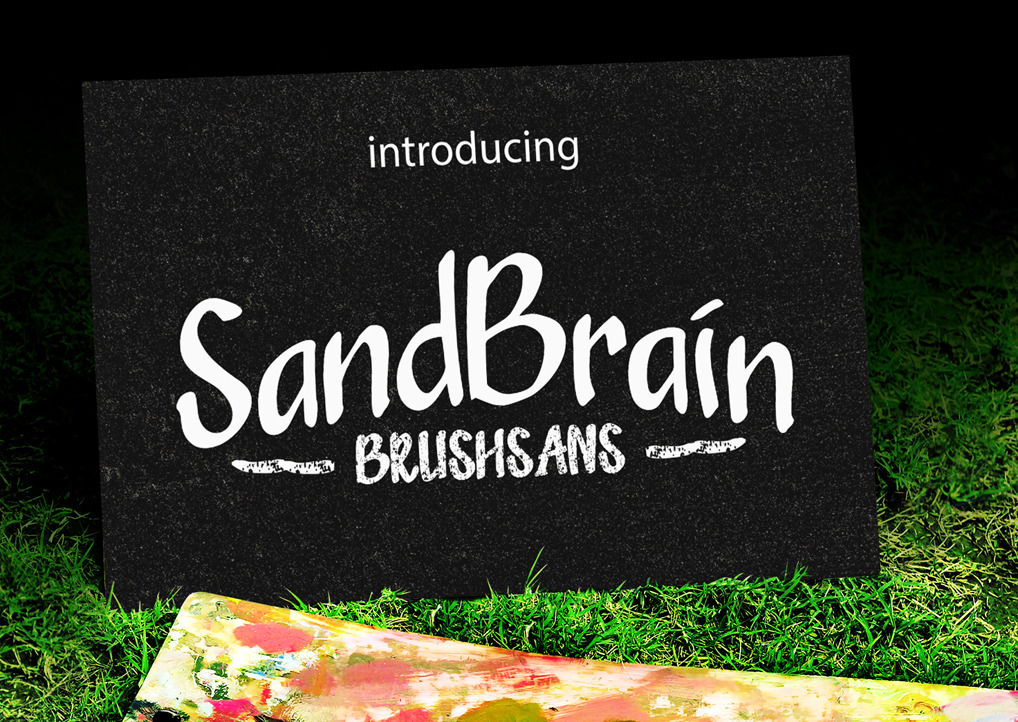
New Present "SandBrain"
"SandBrain" is a smooth hand marker, modern style marker , which was created to meet the needs of your next design project.
Comes with upper and lowercase characters, large set of punctuation glyphs, numerals, and supports international languages. Stylistic alternates for several key lower case characters
Standard Character. Stylistic Sets.